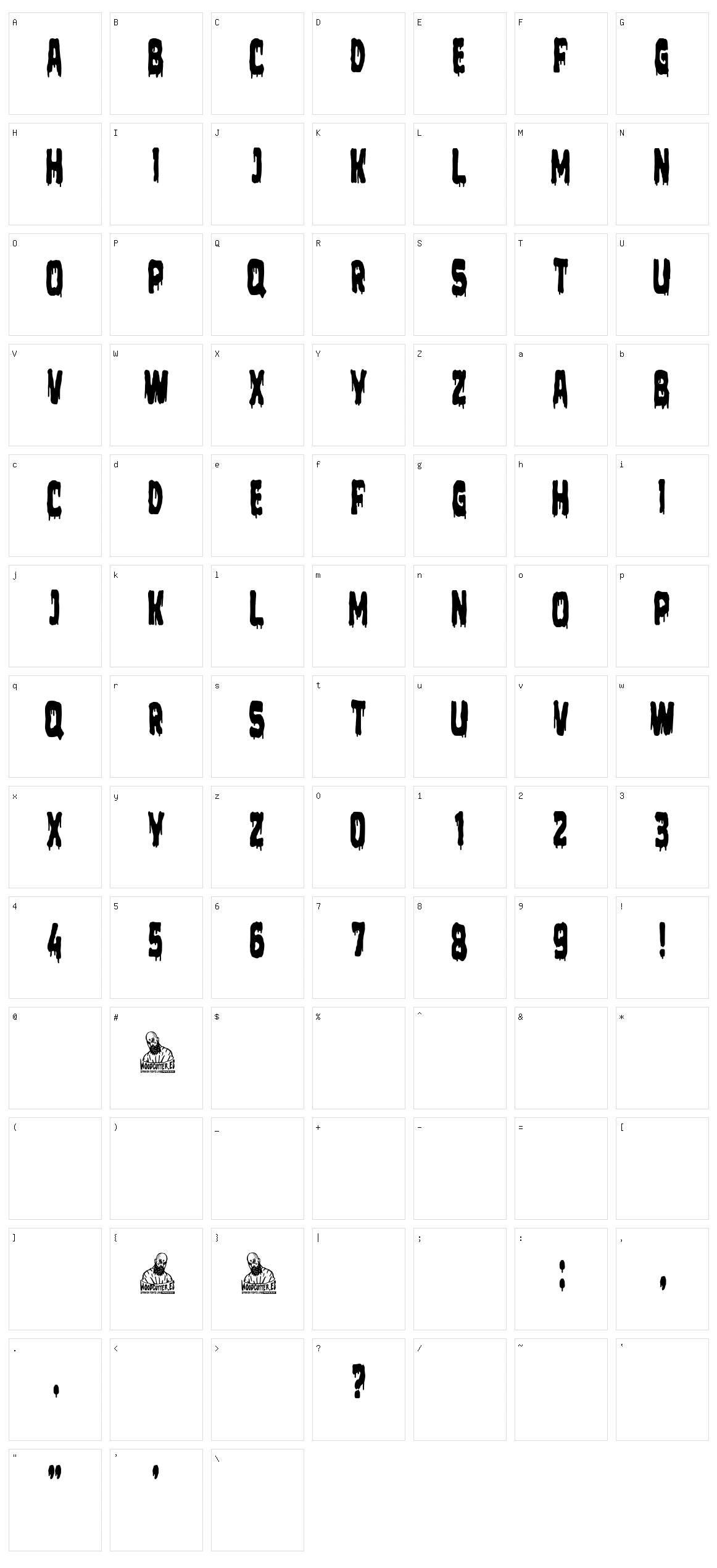
The free font Lunes Sangriento is carefully designed by Woodcutter, showcasing a thoughtful balance of creativity and usability and falls under the Horror font style. When you download the ZIP file, it contains only 48.93 KB of font files, making it lightweight and quick to download. Please review the license details below to understand permitted usage and distribution rights. If license information is not available, we recommend using this font for personal projects only or contacting the author directly for commercial usage permissions.